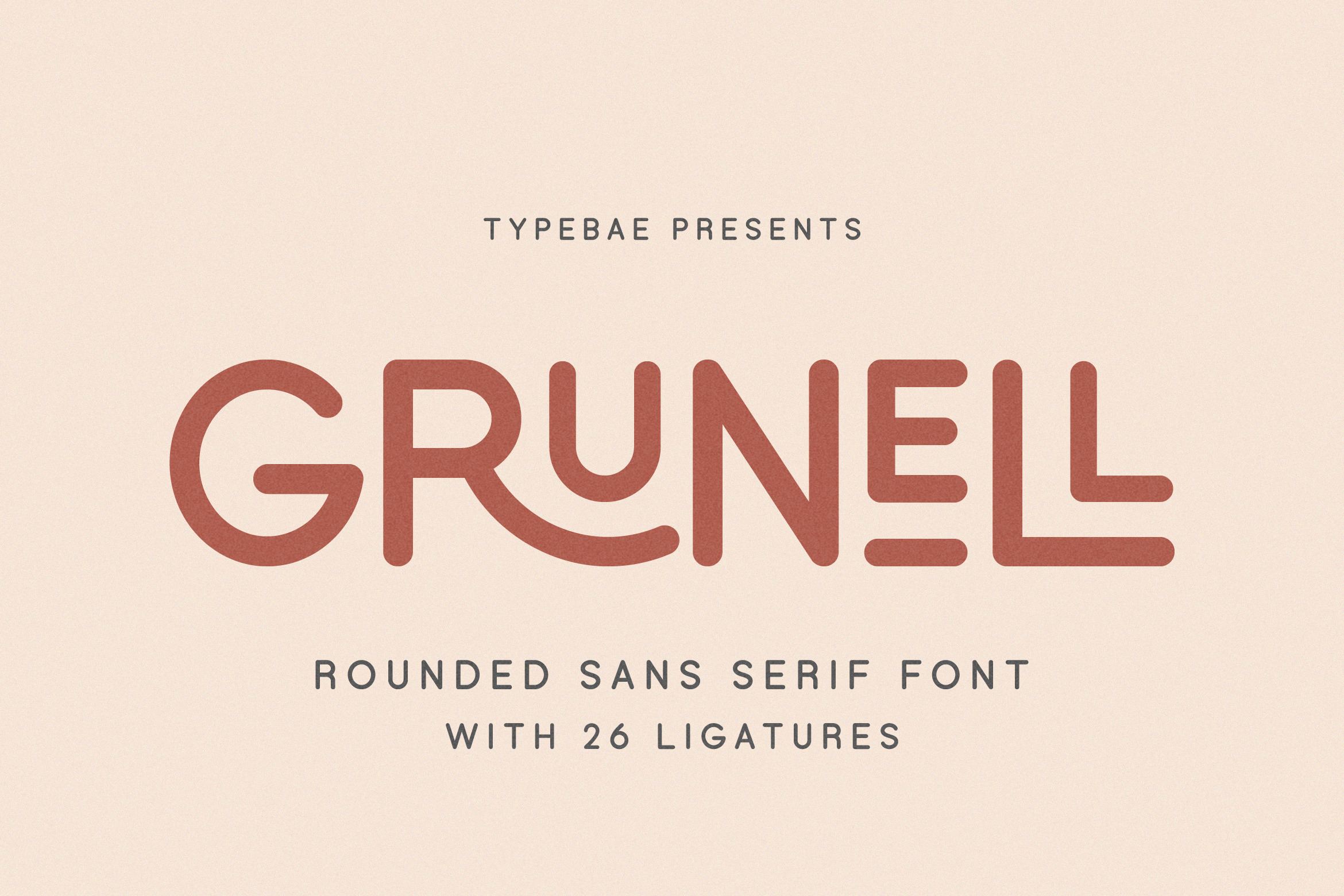
Grunell is a rounded sans serif font that embodies a modern and friendly aesthetic. This font boasts a collection of 26 unique ligatures, allowing for creative and visually appealing typographic compositions. With clean and legible letterforms, it works well for both digital and print applications.
Feature: 26 Ligatures, Alternate, Multilingual and PUA encoded.